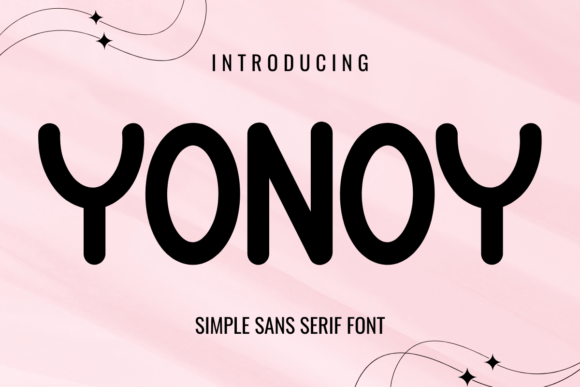
Yonoy, Modern Display Font for Branding & Merch
Yonoy is a simple sans‑serif / display font designed with retro balance and soft curves, giving text a friendly and approachable aesthetic. Its clean letterforms and readable style make it suitable for a wide range of design applications — from web graphics and logos to packaging, posters, and merchandise. As a digital font, it integrates smoothly into design software, cut‑file workflows, and print‑on‑demand production.
This font is perfect for graphic designers, crafters, small business owners, print‑on‑demand sellers, and anyone seeking a versatile, pleasant typeface that pairs well with modern or vintage‑style design themes.
- Friendly, clean and slightly retro design — works well across modern or vintage‑inspired projects
- Good readability — suitable for both display uses and smaller text depending on layout